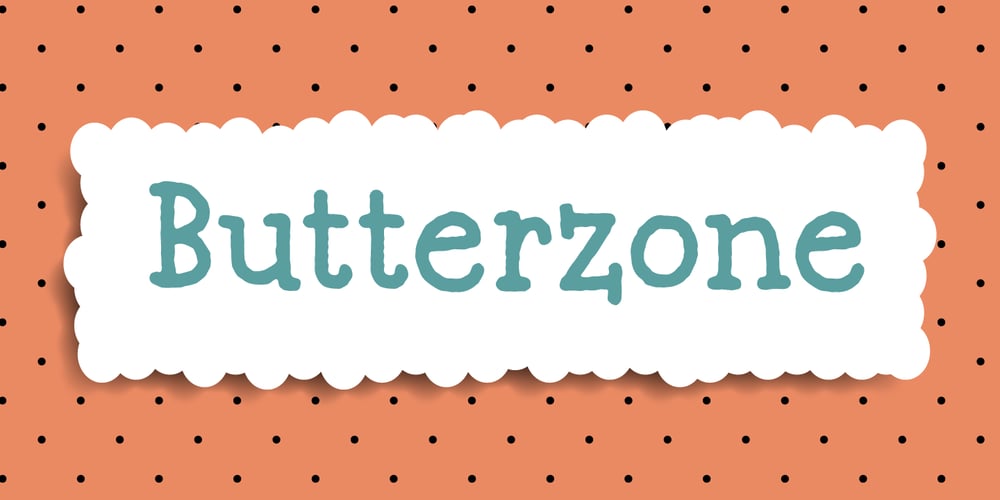
Butterzone Font Family was designed by Jakob Fischer and published by PizzaDude.dk. Butterzone contains 3 styles and family package options. A slightly rugged and chunky seriffed font. Mouthwatering effect when used in both lower- and uppercase! Multilingual support to satisfy all your language needs!